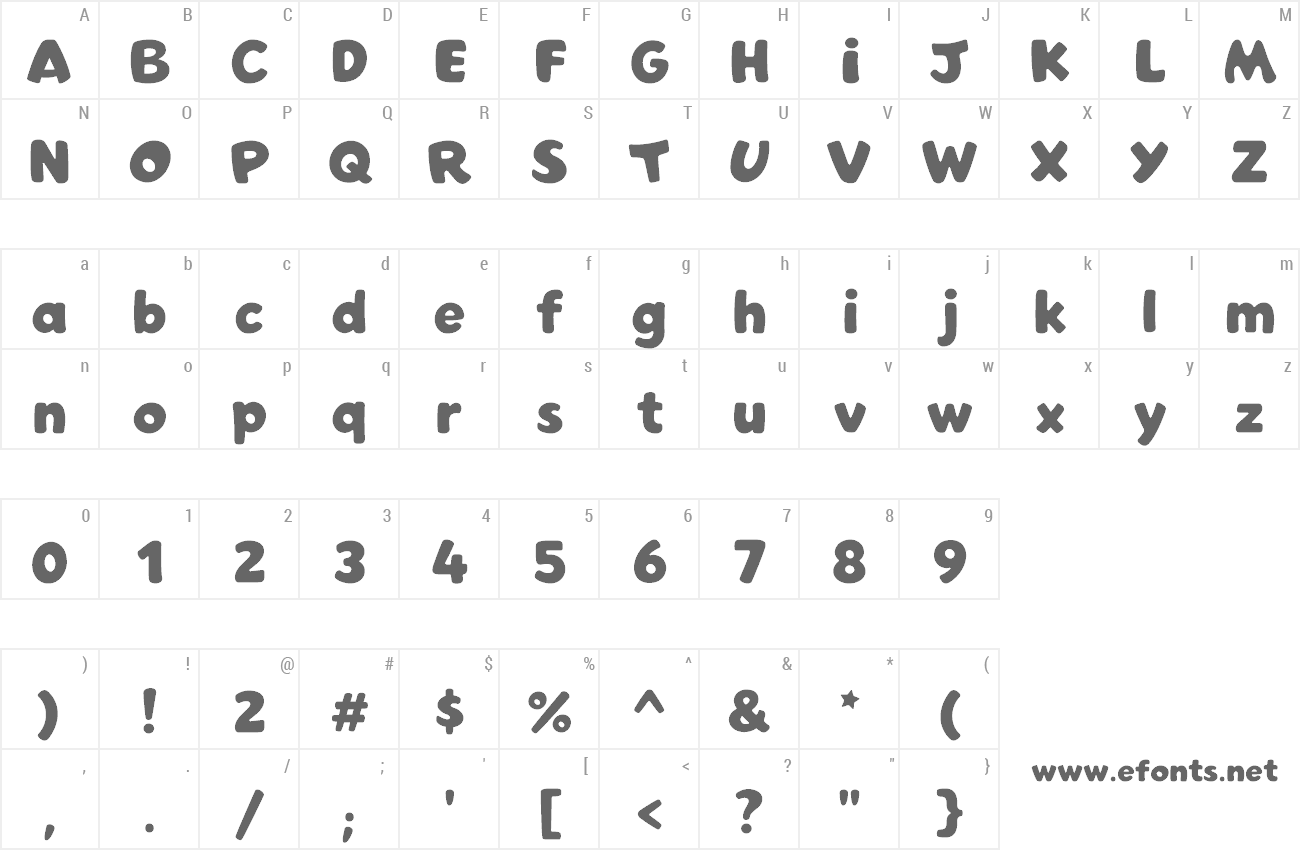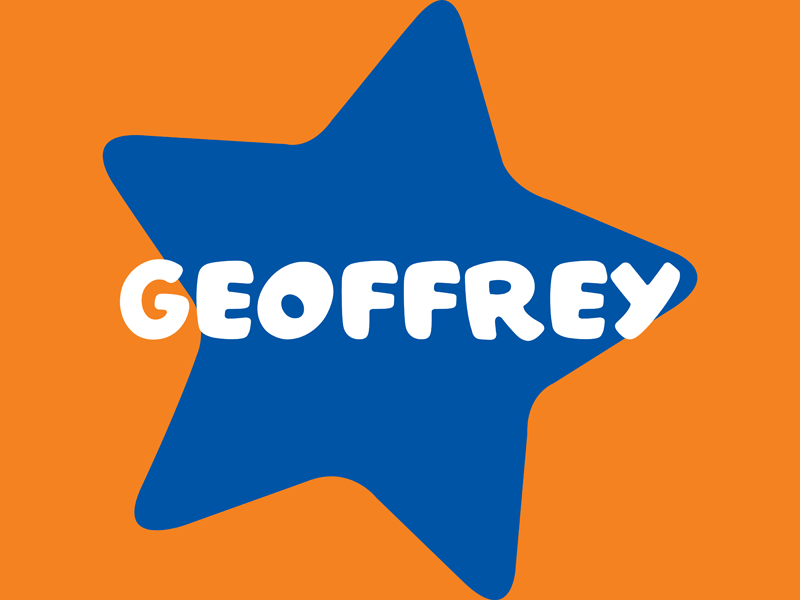
Preview and download Geoffrey Font. Created by LyonsType in Fancy Cartoon styles with 100% Free license.
A font heavily inspired by the Toys "R" Us logo, with support of countless languages and OpenType features. Have any questions? Contact me at lyonstype@gmail.com. Visit LyonsType at: https://lyonstype.wixsite.com/home |